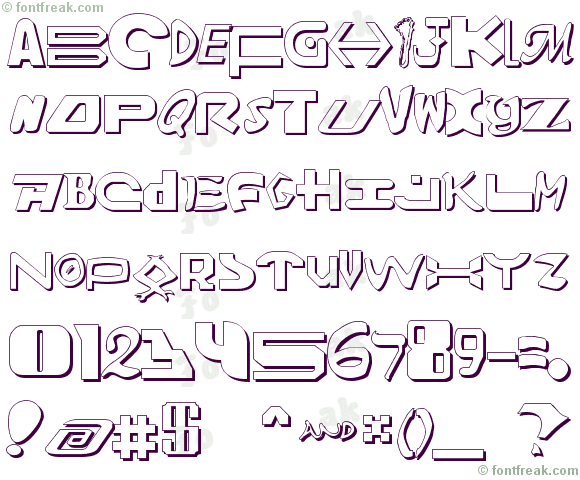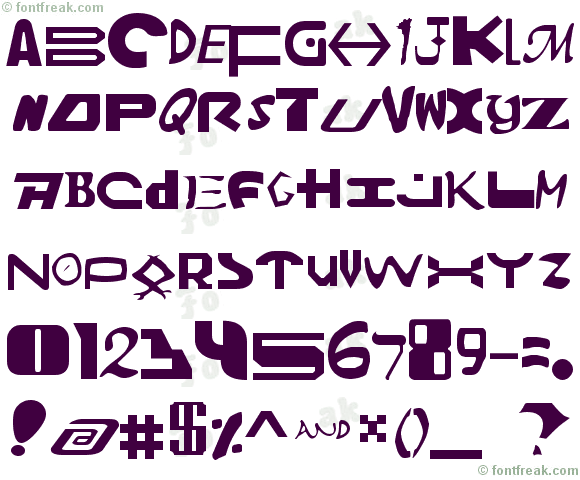
Amalgam
Amalgam Shadow
About Amalgam
Amalgam is a striking display font designed by Iconian Fonts, released in 2002 as freeware. This unique typeface combines bold, geometric shapes with a hint of artistic flair, making it a standout choice for a variety of creative projects. The font features a moderate stroke weight with minimal contrast, allowing for clarity and legibility even at larger sizes. Its distinctive styling includes angular edges and dynamic curves, creating a sense of movement and energy. The letter spacing is well-balanced, ensuring that each character stands out while maintaining a cohesive appearance.
The versatile nature of Amalgam makes it suitable for a wide range of applications. It shines in settings such as movie posters, where it can draw attention and convey a sense of drama. Graphic designers may find it ideal for branding projects, as its bold personality helps create memorable logos. The font can also elevate restaurant menus, giving them a modern yet artistic touch. Additionally, Amalgam is perfect for promotional materials, where eye-catching typography is essential to attract customers. Content creators looking to enhance their digital presence will appreciate its unique aesthetics in social media graphics and website headers.
Targeting graphic designers, small business owners, and content creators, Amalgam provides a fresh and engaging option for those seeking to make a strong visual impact. The Amalgam font free download makes it easily accessible for anyone looking to incorporate this distinctive typeface into their projects. What sets Amalgam apart is its ability to blend functionality with artistic expression, making it not just a font, but a powerful tool for visual storytelling. Whether used in print or digital media, Amalgam promises to leave a lasting impression.